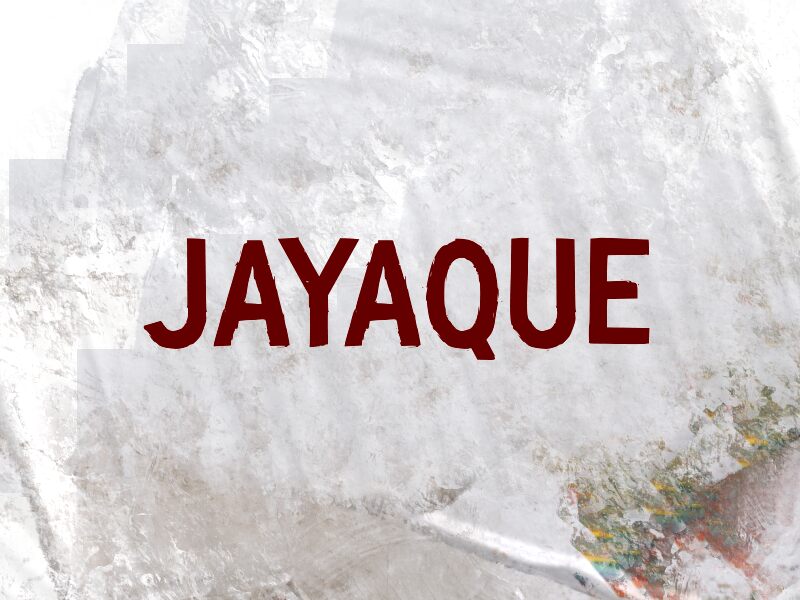
JAYAQUE
Jayaque font by wep is a free eroded display typeface that looks like it’s been scraped off a weathered wall. Its chunky, slightly wobbled letters feel hand-cut and battered, with rough edges and irregular inky patches that give it a raw, tactile energy. Despite the distressed texture, the forms stay bold and readable, so you get grit and clarity in the same breath.
Using Jayaque, this free font, you can push attitude to the forefront on gig posters, album covers, protest graphics, zines, streetwear branding, and horror titles. It shines at larger sizes where the scuffed details can really show, while a clean geometric sans makes an easy pairing for supporting text.